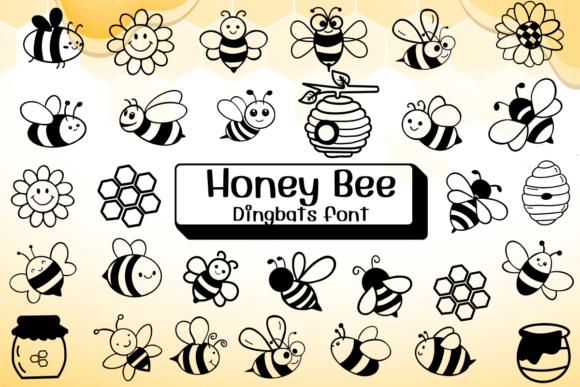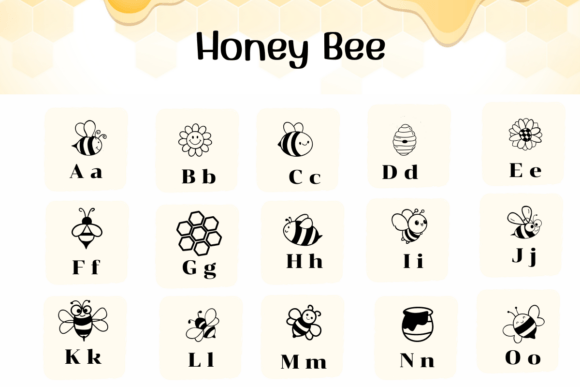
Honey Bee Font
Honey Bee is a playful dingbat font featuring adorable bee designs. Perfect for adding a sweet, buzzing touch to your projects like invitations, cards, or crafts! 🐝